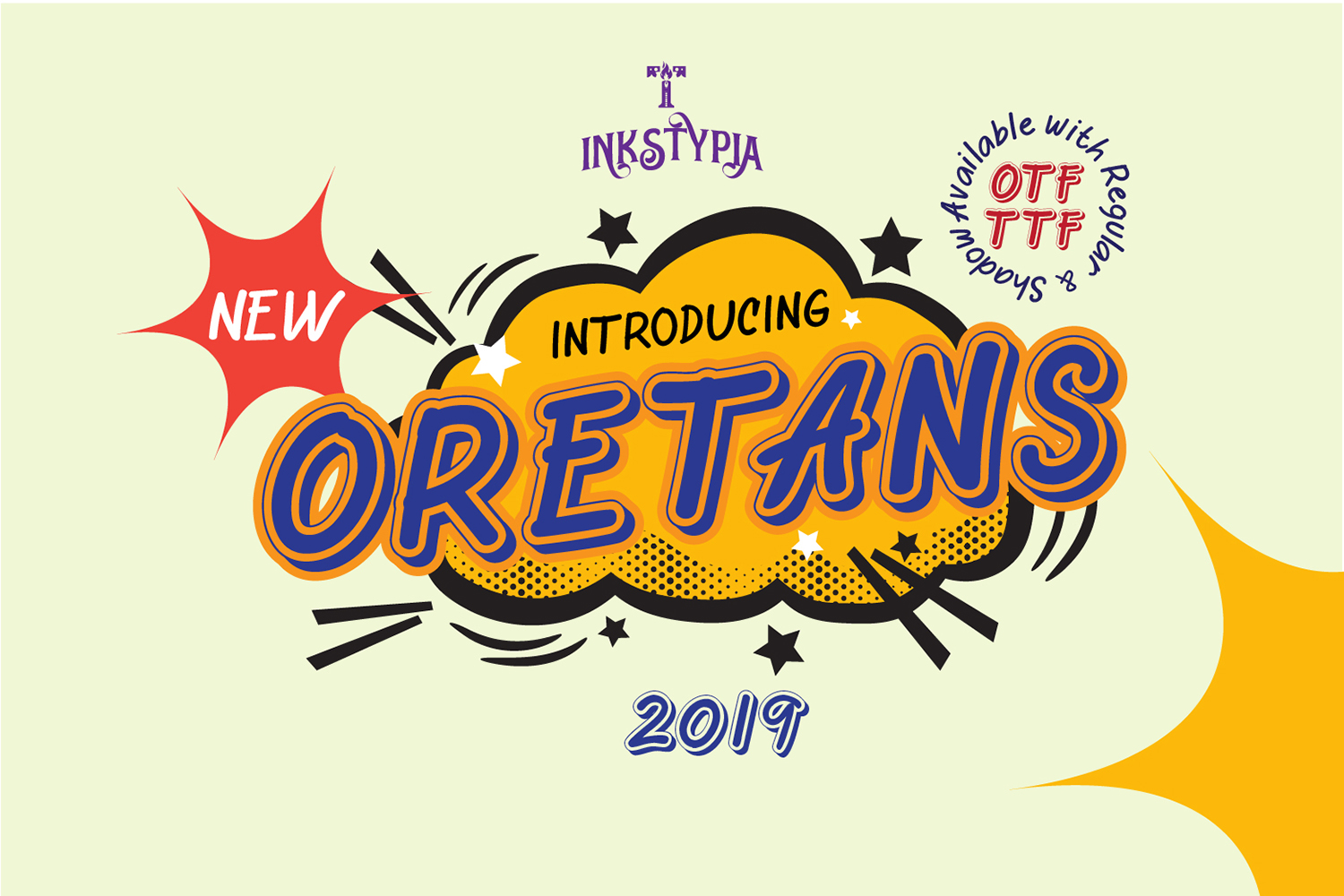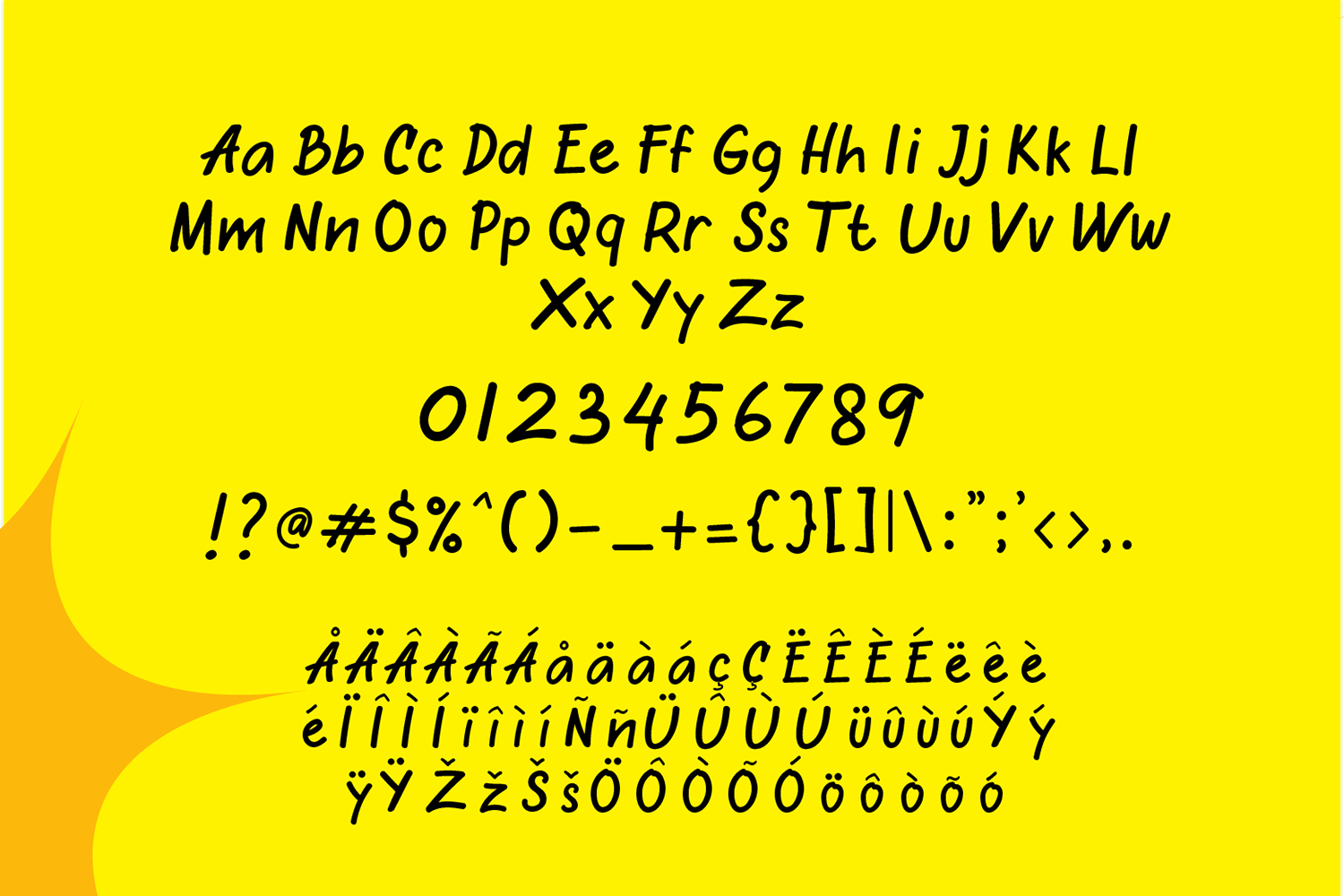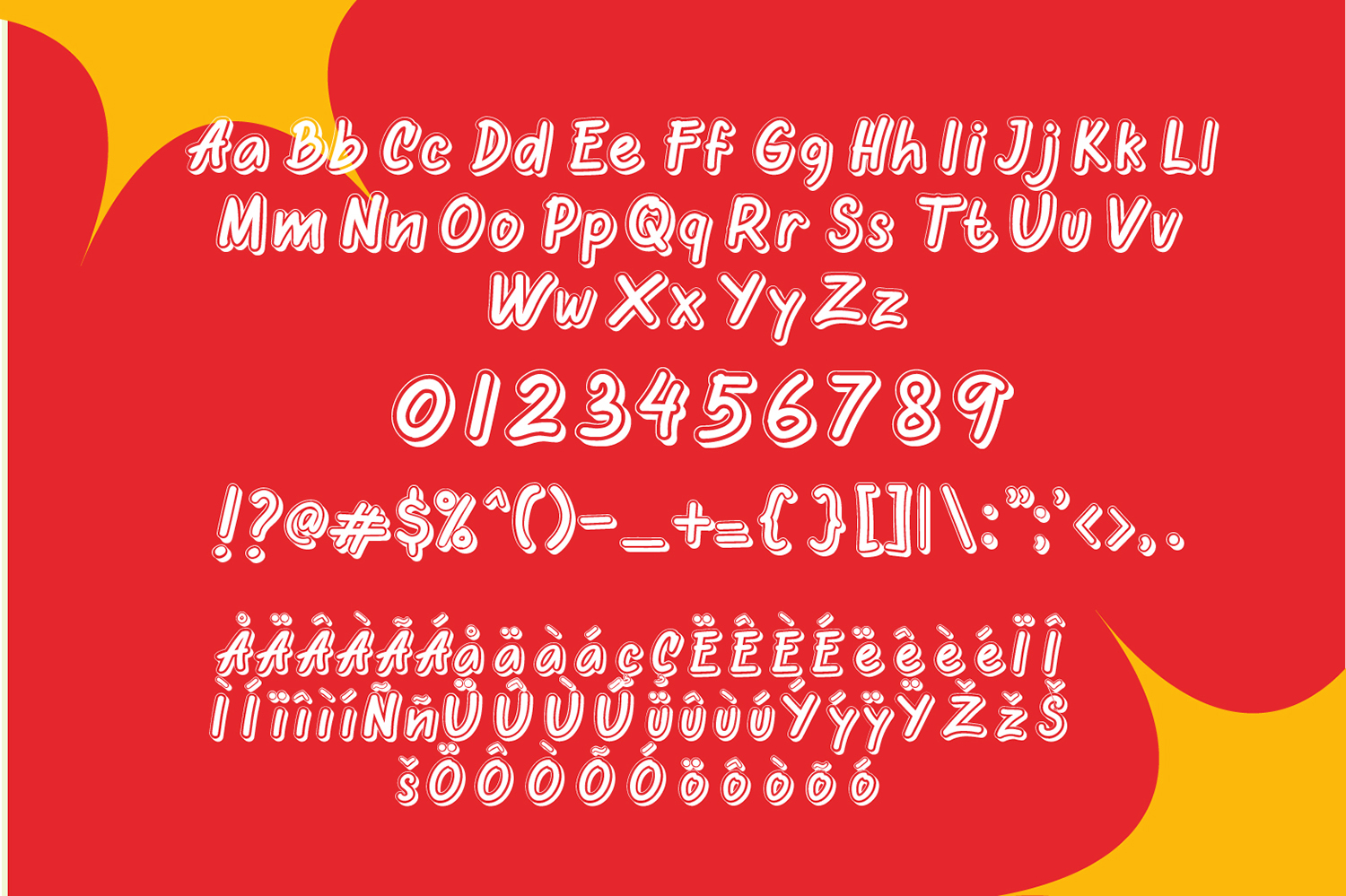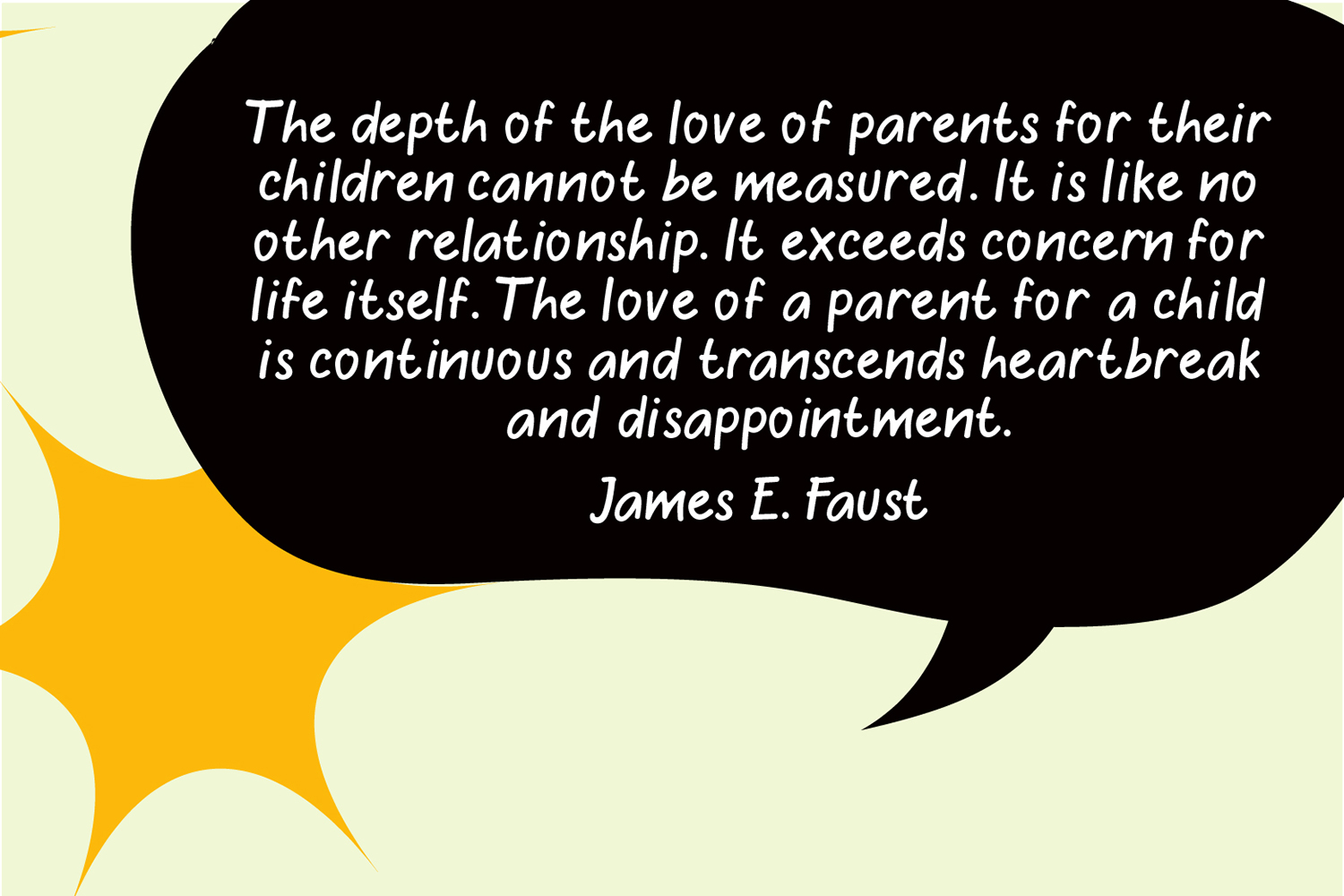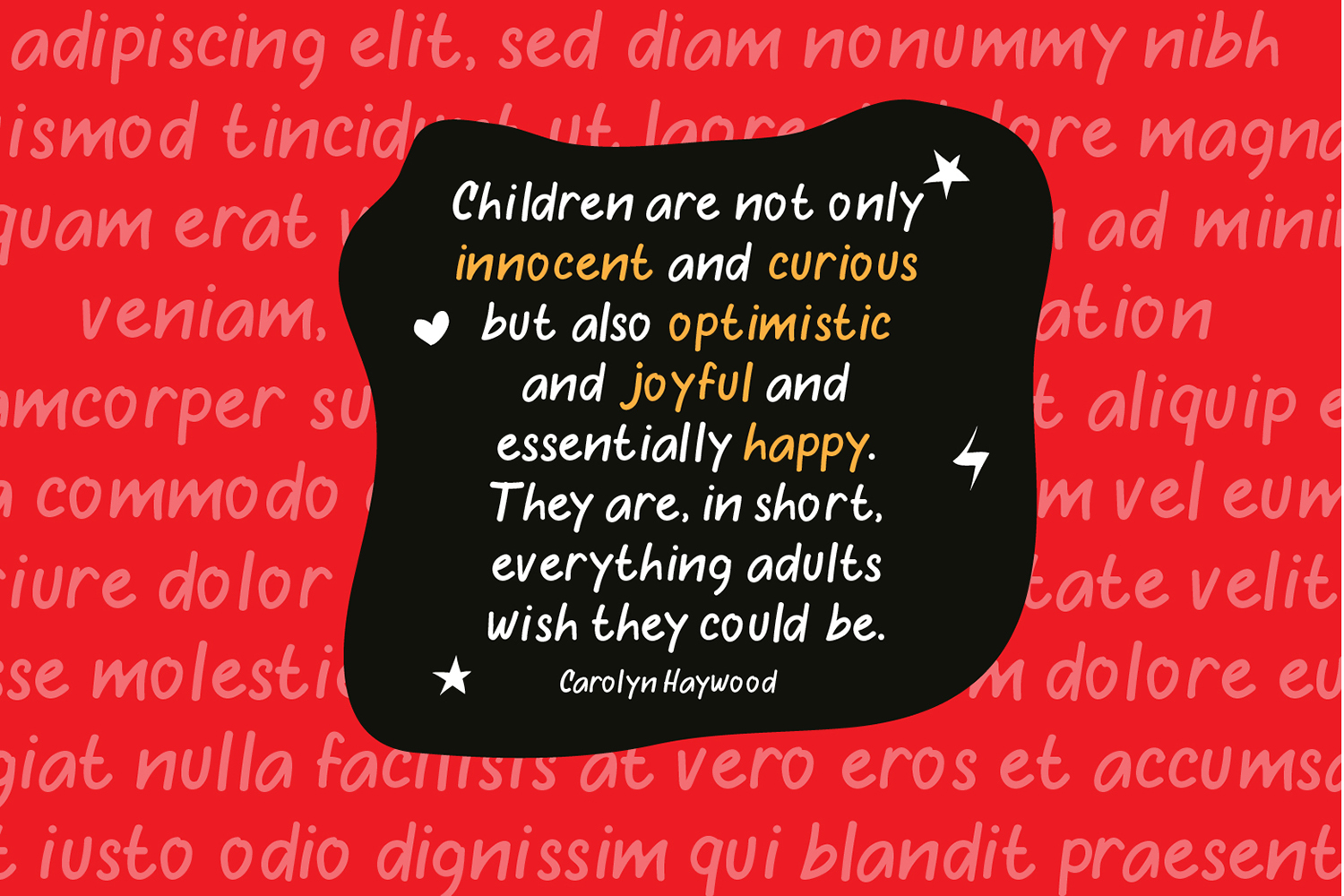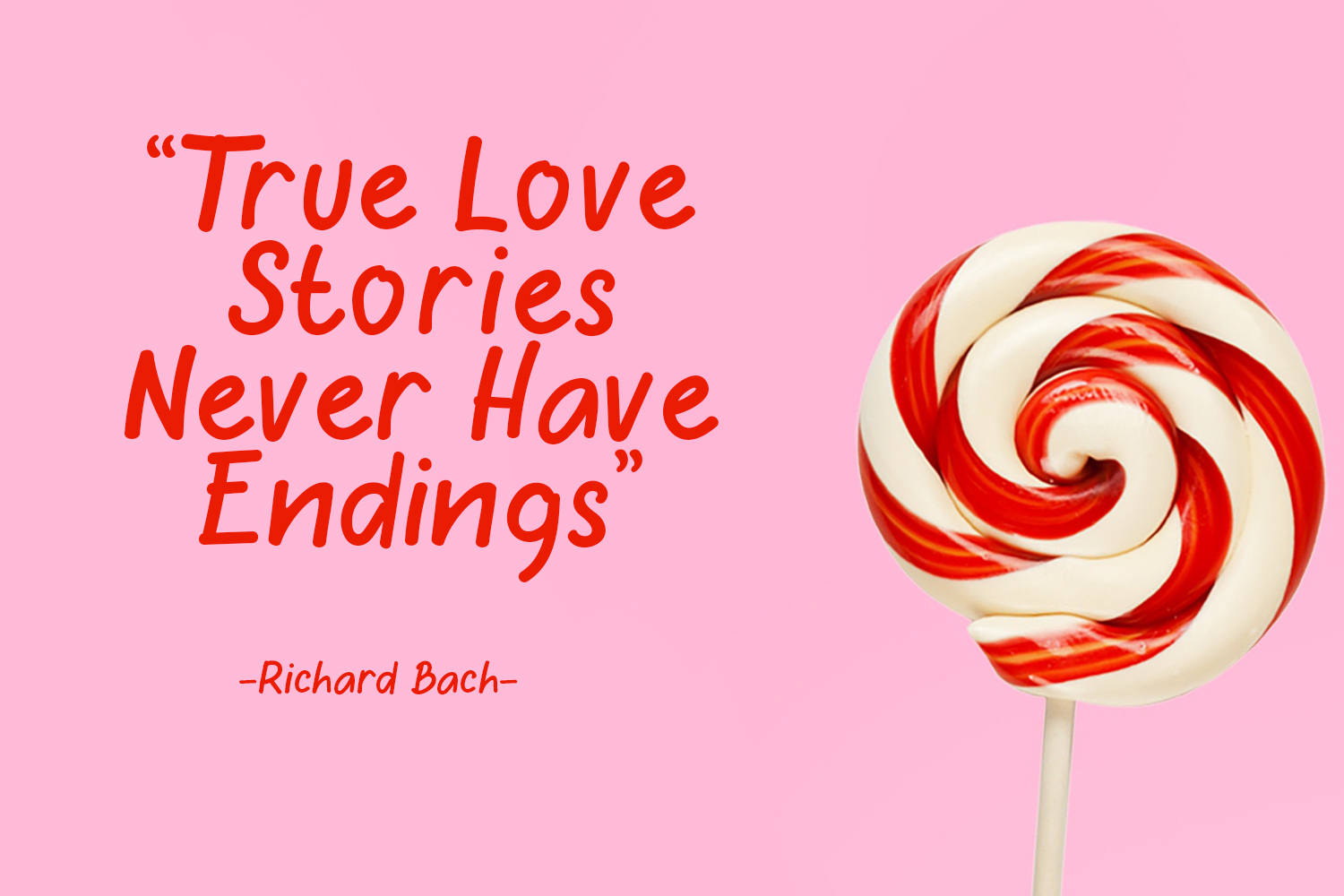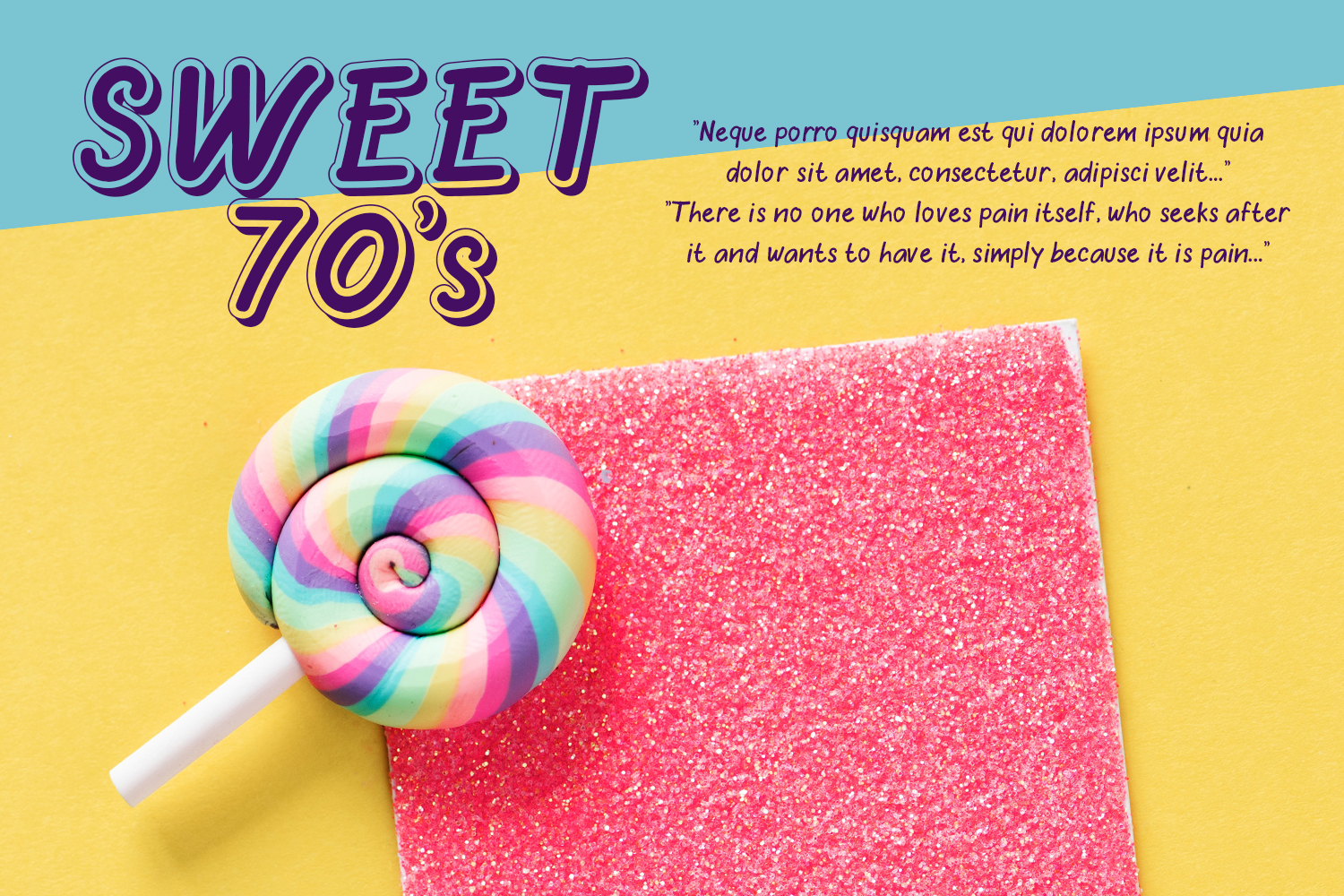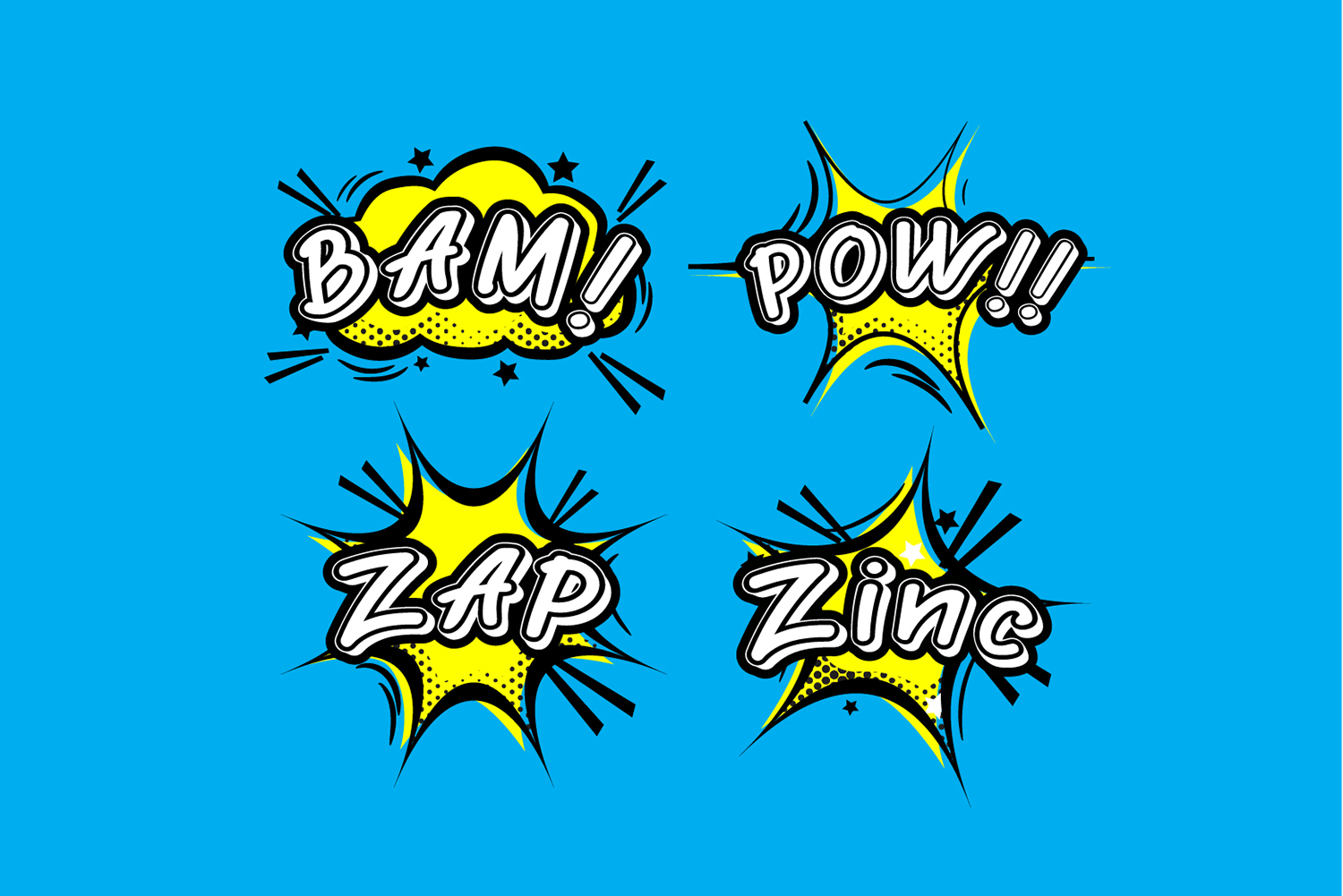
Oretans Free Font
Oretans Free Font is a typeface inspired by handwritten scratches, simple, straightforward, and childish. This letter is equipped with a 3D style that is suitable for your display letter needs, available in TTF and OTF formats, and also comes with multi-language features. This free typeface was designed by talented Inkstypia Studio. If you like it don’t forget to check out the full version.